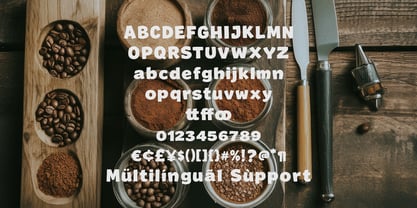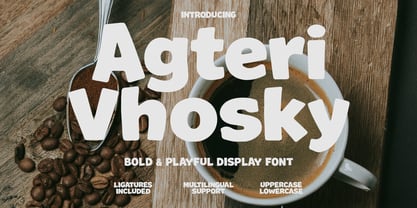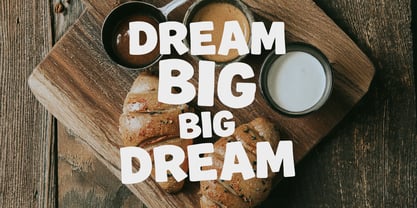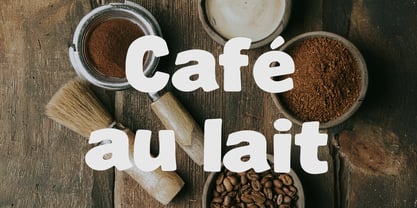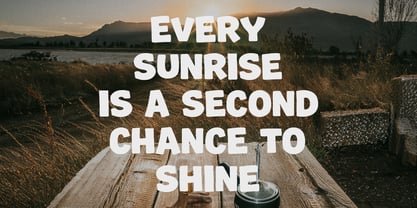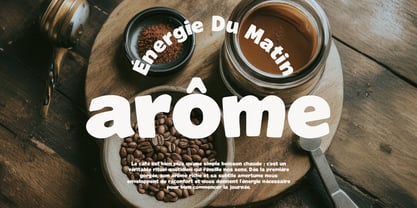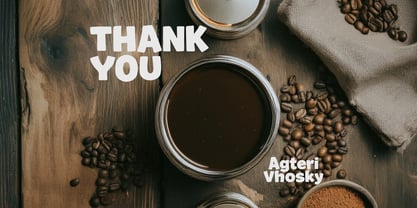
Agteri Vhosky
by Maulana Creative
The Agteri Vhosky Font Family was designed by Gilang Maulana and published by Maulana Creative. Agteri Vhosky contains 1 styles. More about this family
Agteri Vhosky is a charming display font featuring bold, soft, and rounded letterforms designed to bring warmth and energy to any creative work. Its thick strokes combined with organic, friendly curves give each character a welcoming and cheerful appearance. The font excels at creating immediate visual impact while maintaining a cozy, approachable vibe, making it an excellent choice for eye-catching titles and expressive branding layouts.
Equipped with uppercase, lowercase, numbers, symbols, ligatures, and extensive multilingual support, this versatile typeface delivers exceptional readability across various digital and visual mediums. Whether crafted for food and beverage packaging, bakery signage, menu boards, children's book covers, social media graphics, or festive event promotions, Agteri Vhosky adds a delightful handcrafted touch that captures attention effortlessly.
Designers: Gilang Maulana
Foundry: Maulana Creative